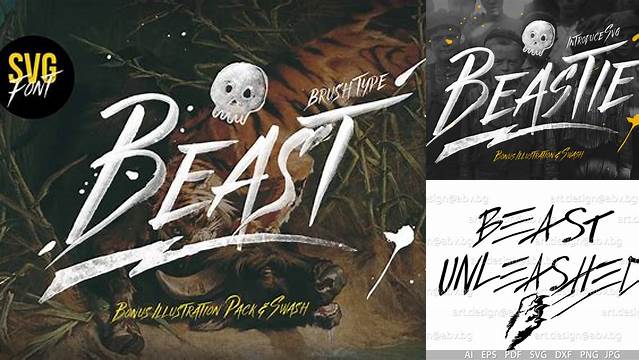
Free Beast SVG Font: Download & Unleash Your Creativity!
Hey guys! Ready to inject some serious style into your projects? If you're looking for a font that screams bold, edgy, and a touch of untamed wildness, then you're in the right place. We're diving deep into the world of the Beast SVG font, and the best part? You can snag a free download and start creating awesome designs right now! This article is your ultimate guide to everything you need to know about this killer font, from where to find it, how to use it, and what kind of amazing projects you can bring to life. So buckle up, and let's get started on this creative journey!
What is a Beast SVG Font, Anyway?
So, what exactly is a Beast SVG font? Well, first off, SVG stands for Scalable Vector Graphics. Unlike regular fonts, which are often pixel-based, SVG fonts are vector-based. This means they are made up of mathematical equations that define the shapes of the letters. The beauty of this is that you can scale them up or down without losing any quality – perfect for everything from tiny website headings to massive print posters. The "Beast" part of the name usually implies a font with a strong, powerful, and often slightly aggressive aesthetic. Think bold lines, maybe some rough textures, and definitely a sense of raw energy. It's a font that demands attention and isn't afraid to make a statement. Often these fonts come with a textured look, making it look like it's been painted or drawn, which is perfect for adding a unique touch to your designs. With a Beast SVG font, you're not just typing words; you're making a bold visual statement. It is the ultimate choice for those who want their designs to stand out from the crowd. Get ready to add some serious impact to your designs!
Creative Project Ideas Using the Beast SVG Font
Once you've got your Beast SVG font installed and ready to go, the creative possibilities are endless! This font style is perfect for a wide range of projects where you want to make a bold statement. Think about designing logos for edgy brands or businesses that want a strong visual identity. It’s perfect for bands, sports teams, or anyone who wants to project power. Create striking headlines and titles for websites, blogs, or social media posts that immediately grab attention. Design awesome posters, flyers, and promotional materials for events, concerts, or businesses that want a raw and energetic feel. Use it to design custom t-shirts and merchandise with a strong graphic impact. The textured look of many SVG fonts makes them perfect for creating designs that look hand-painted or drawn. If you're a gamer or streamer, you can use the font for creating graphics, overlays, and branding elements for your channels. Beyond these ideas, you can also create customized invitations, greeting cards, and other stationary items for events that need a unique look. Unleash your creativity and design some custom artwork. These fonts can be transformed into unique wall art, digital art, or even tattoo designs. The versatility of this font allows you to be as creative as you want! Combining it with other design elements, such as illustrations, textures, or patterns, can enhance its visual impact. Play with color combinations and effects to create unique and eye-catching designs. Using the Beast SVG font provides you with a solid foundation for your creative endeavors.
Beast SVG Font vs. Regular Fonts: What's the Difference?
Let’s break down the differences between a Beast SVG font and a regular font. The most basic difference is in their technology. Regular fonts, like .ttf or .otf fonts, are typically outline-based. This means that each character is defined by a series of lines and curves. When you scale a regular font, the software has to redraw the outlines to match the new size. This can sometimes lead to a loss of quality, especially at very large or very small sizes. On the other hand, Beast SVG fonts are vector-based. This means that each character is defined by mathematical formulas. You can scale SVG fonts up or down infinitely without any loss of quality. The second major difference lies in appearance and features. SVG fonts can incorporate detailed textures, gradients, and even multi-color designs directly into the font file. This allows for some amazing effects that you can't easily achieve with regular fonts. Regular fonts, while still versatile, often lack these advanced features. The final consideration is compatibility. Regular fonts are widely supported by almost all software and operating systems. SVG fonts, while becoming more popular, are supported in a more limited range of programs. Programs like Adobe Illustrator, Inkscape, and certain web browsers offer excellent SVG font support. While regular fonts are generally easier to implement across various platforms, Beast SVG fonts offer a unique aesthetic that can set your designs apart.
Tips for Choosing the Right Beast SVG Font for Your Project
Choosing the perfect Beast SVG font for your project can make or break your design. With so many options available, here are some tips to help you find the right one: First, define your project's purpose and target audience. What message do you want to convey? Who are you trying to reach? The font should align with the overall feel of your project. Consider the style of the font. Does it need to be more rough and aggressive, or perhaps a little more refined? Look at the font’s individual characters. Do the letters look good together? Does the font have all the characters you need? Experiment with different fonts. Try out several options before making your final decision. Test the font in your designs. See how it looks in different sizes, colors, and with different backgrounds. Make sure the font is legible, especially for longer text. Remember, your text should be easy to read. The font should also be versatile. Can it be used in various applications, such as logos, headlines, and body text? Always consider the technical aspects. Does the font support your software? Does it support your languages? Ultimately, trust your instincts. Choose a font that you feel confident and excited about! Don't be afraid to combine fonts. Combining the Beast SVG font with other fonts can create interesting visual effects.
Conclusion: Unleash Your Creativity with Beast SVG Font!
And there you have it, guys! You now have all the knowledge you need to find, download, install, and master the Beast SVG font. From creating eye-catching logos to designing stunning website headers and social media graphics, the possibilities are truly endless. So, go out there, download your free font, and start creating designs that are as bold, unique, and untamed as the Beast itself. Don't be afraid to experiment, have fun, and let your creativity run wild. Happy designing!